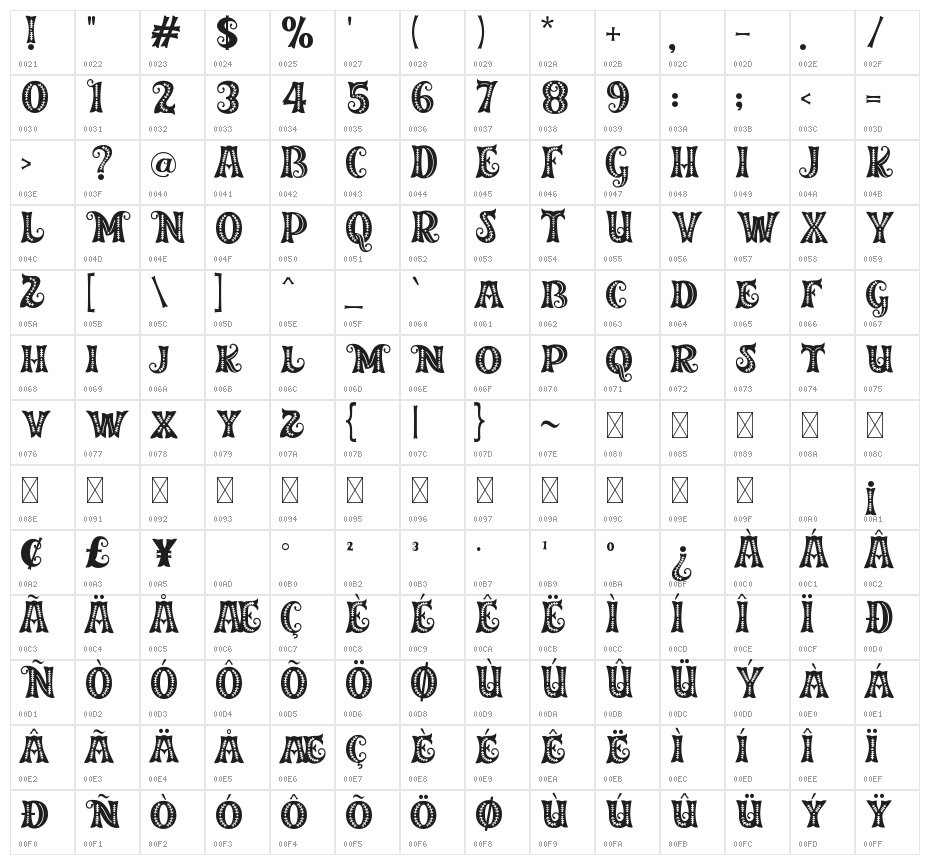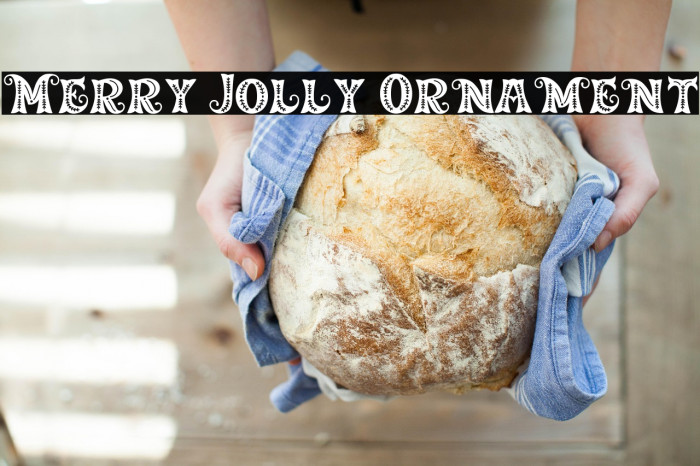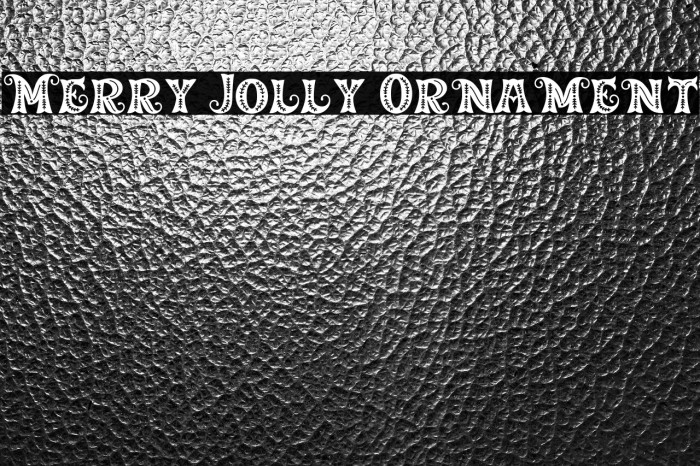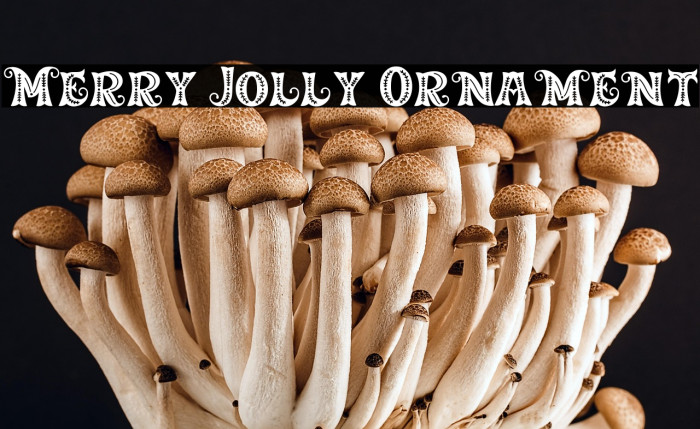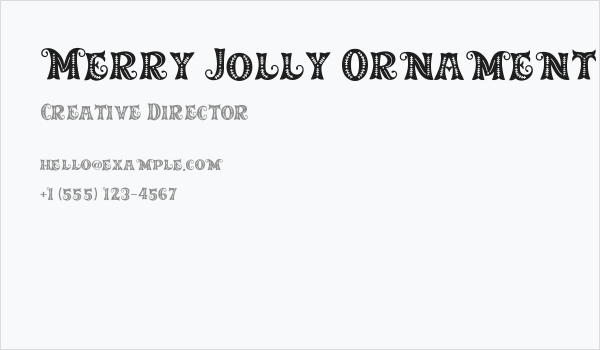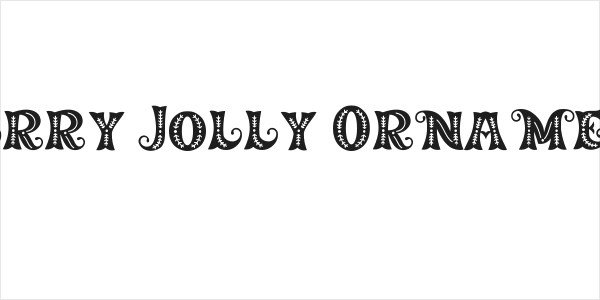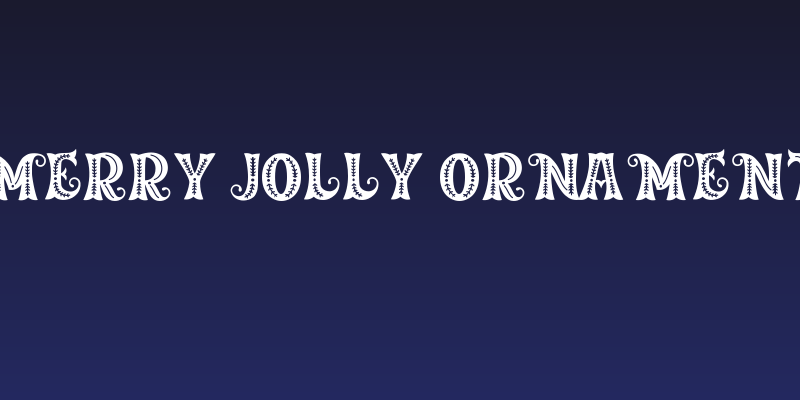
Merry Jolly Ornament Font
Merry Jolly Ornament Description
This font features a whimsical and festive design, characterized by its ornate and decorative elements. Each letter is adorned with intricate patterns resembling holiday ornaments, giving it a playful and joyful appearance. The strokes are bold and consistent, with a medium contrast that enhances the decorative details. The overall style is reminiscent of holiday cheer, making it ideal for festive occasions. The characters have a moderate width, and the spacing between them is normal, ensuring readability while maintaining its decorative charm.
| Proposed Projects | Ideal for holiday cards, festive invitations, seasonal branding, and decorative posters. |